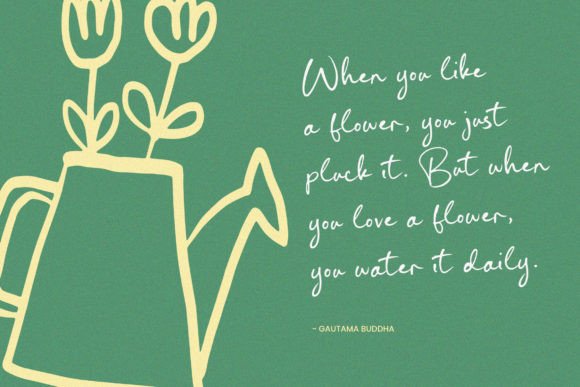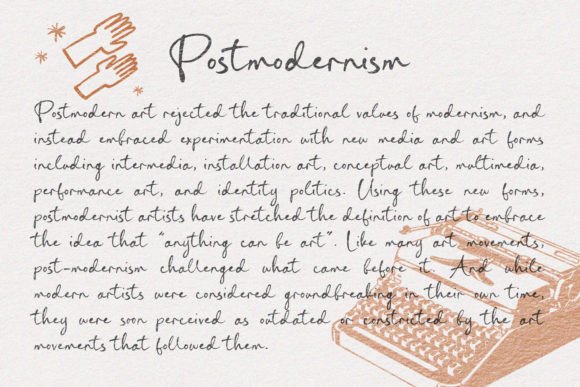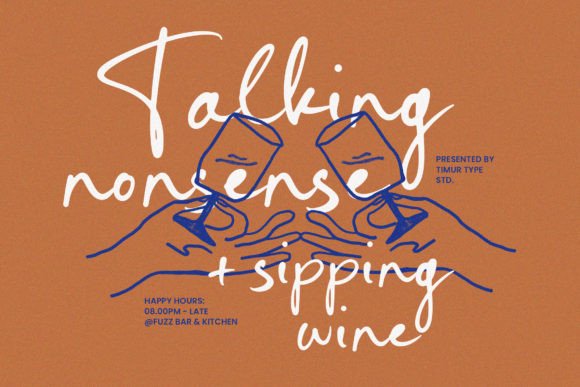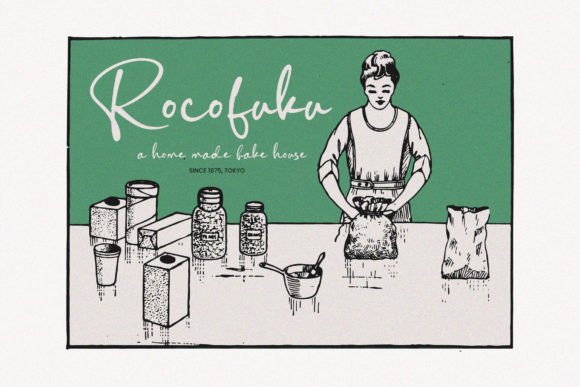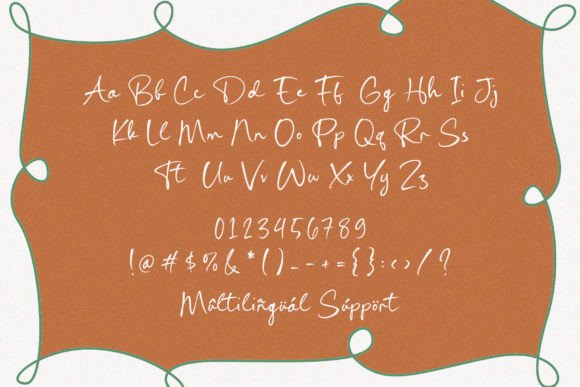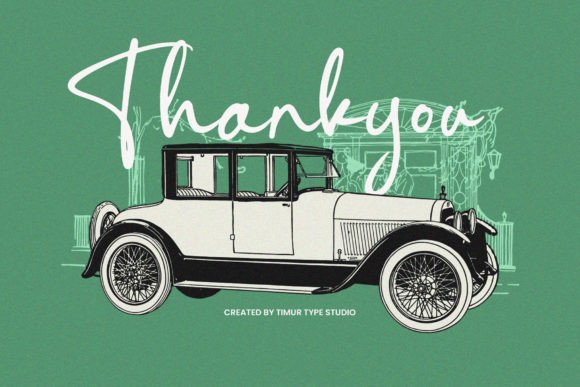
Gustavo Autograph Font: Adding a Touch of Whimsy to Your Designs
Are you looking for a font that can add a dash of personality and charm to your creative projects? Look no further than Gustavo Autograph, a whimsical and enchanting hand-lettered font that is sure to captivate your audience. With its playful and irregular letterforms, this font embodies the essence of carefree creativity and individuality, making it perfect for designers and crafters who want to infuse their work with a sense of wonder and magic.
The Unique Character of Gustavo Autograph
Gustavo Autograph is a one-of-a-kind font that boasts a unique and captivating character. Its hand-lettered design gives it a personal and human touch, making it perfect for projects that require a sense of personality and flair. The font’s playful and irregular letterforms add a touch of whimsy and imagination to any design, making it ideal for creative projects that require a dash of magic.
Gustavo Autograph is a versatile font that can be used for a wide range of design projects. Whether you’re creating greeting cards, posters, children’s book covers, or any other type of design that requires a touch of personality, this font is sure to deliver. Its whimsical and enchanting design makes it perfect for:
- Greeting cards: Add a touch of magic to your greeting cards with Gustavo Autograph’s playful and irregular letterforms.
- Posters: Create eye-catching posters that capture the attention of your audience with this font’s unique and captivating character.
- Children’s book covers: Infuse your children’s book covers with a sense of wonder and whimsy with Gustavo Autograph’s enchanting design.
- Stationery: Add a touch of personality to your stationery with this font’s hand-lettered design.
Why Choose Gustavo Autograph?
There are many fonts to choose from, but Gustavo Autograph stands out from the rest due to its unique and captivating character. Here are just a few reasons why you should choose this font for your next design project:
- Unique and captivating character: Gustavo Autograph’s hand-lettered design gives it a personal and human touch that sets it apart from other fonts.
- Perfect for creative projects: This font’s playful and irregular letterforms make it ideal for creative projects that require a dash of magic and imagination.
- Versatile: Gustavo Autograph can be used for a wide range of design projects, from greeting cards to posters and children’s book covers.
Tips for Using Gustavo Autograph
To get the most out of Gustavo Autograph, here are a few tips to keep in mind:
- Use it sparingly: Gustavo Autograph’s unique and captivating character can be overwhelming if used too much. Use it sparingly to add a touch of magic to your designs.
- Pair it with other fonts: This font pairs well with other fonts, so don’t be afraid to experiment with different combinations.
- Experiment with different sizes: Gustavo Autograph looks great in a variety of sizes, so experiment with different sizes to find the one that works best for your design.
Gustavo Autograph is a whimsical and enchanting hand-lettered font that is sure to add a touch of magic to your designs. With its playful and irregular letterforms, this font captures the essence of carefree creativity and individuality, making it perfect for designers and crafters who want to infuse their work with a sense of wonder and whimsy. Whether you’re creating greeting cards, posters, children’s book covers, or any other type of design, Gustavo Autograph is sure to deliver. So why wait? Download Gustavo Autograph today and start adding a touch of personality and charm to your creative projects!